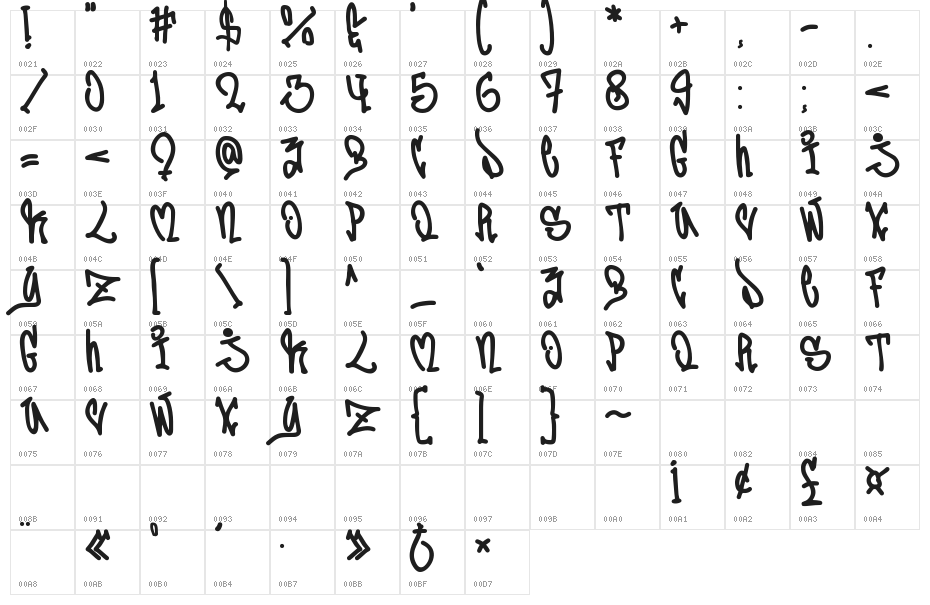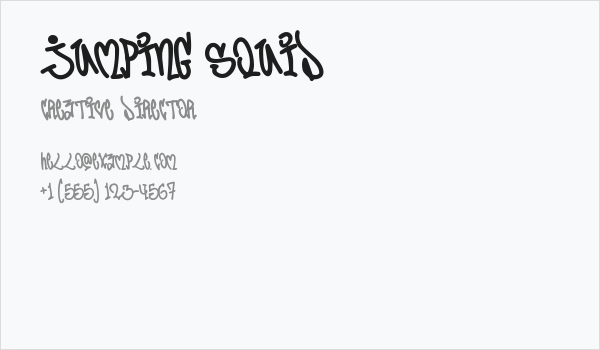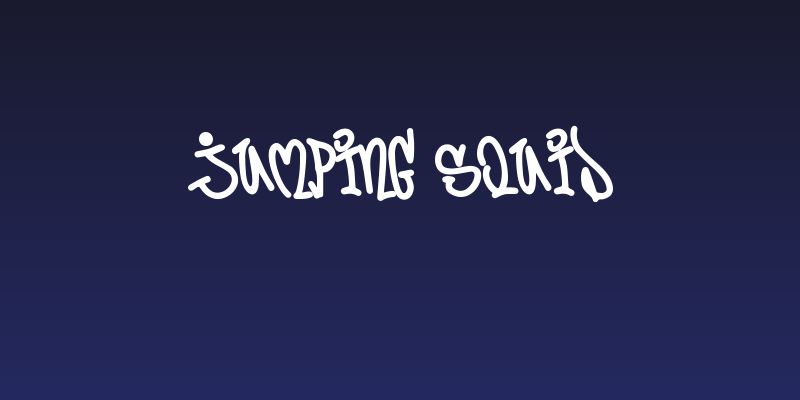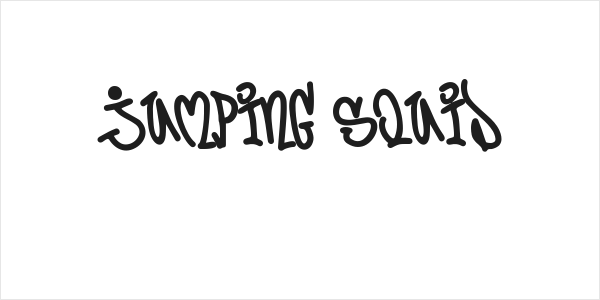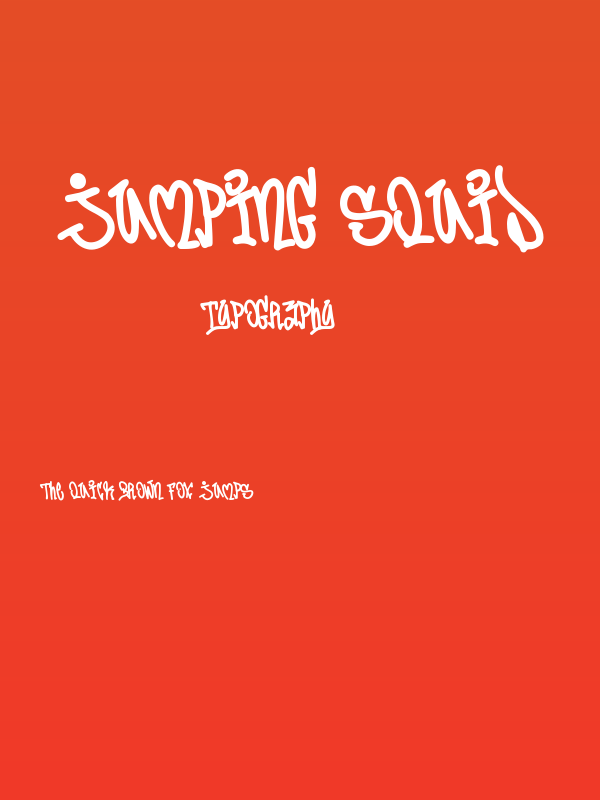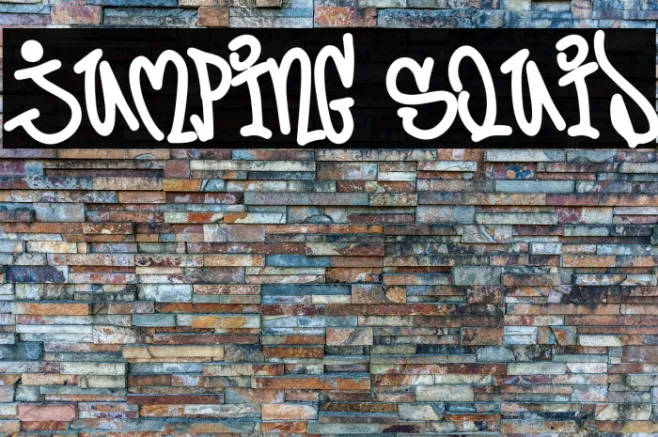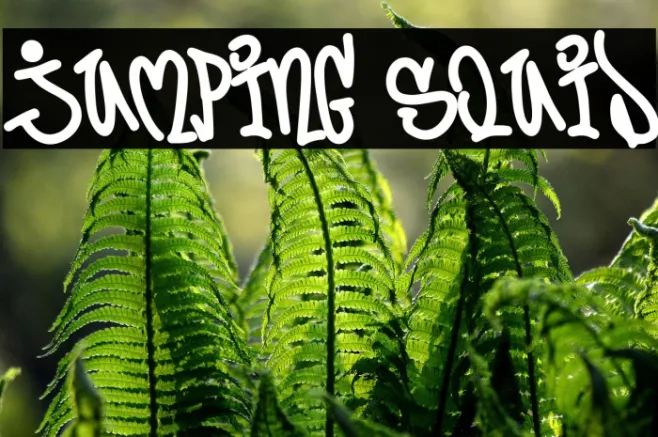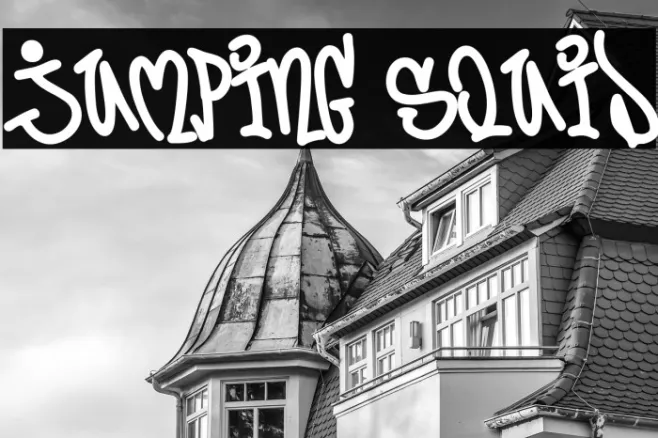
Jumping Squid Font
Jumping Squid Description
This font exhibits a bold, graffiti-inspired style with a playful and energetic vibe. The characters are highly stylized, featuring exaggerated curves and loops that give them a dynamic appearance. The uppercase and lowercase letters maintain a consistent flow, while the numbers and special characters integrate seamlessly with the overall design. The font's artistic flair makes it ideal for projects that require a sense of movement and creativity. Its unique style is eye-catching and perfect for making a statement.
| Overall Style | Modern, Urban |
| Proposed Projects | Ideal for street art designs, urban-themed posters, music album covers, and creative branding projects. |